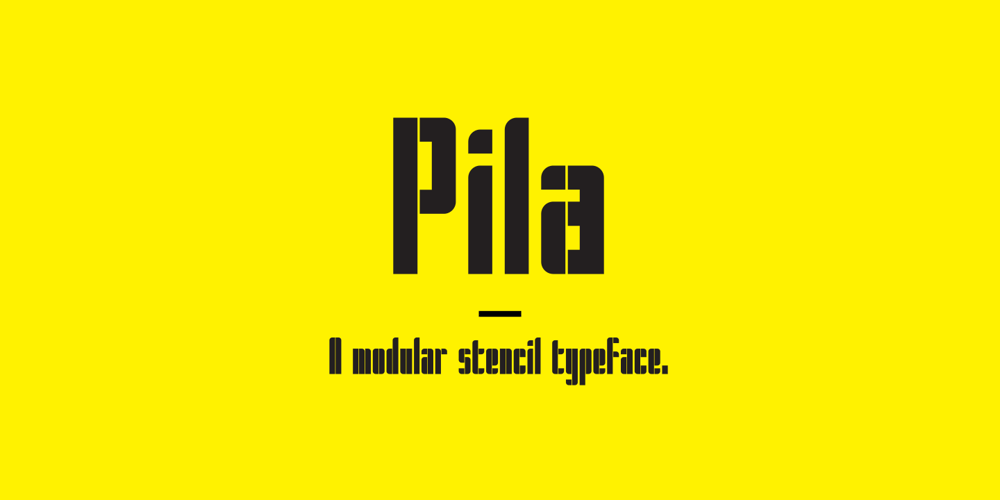
Pila Font Family was designed by Alex Jacque and published by Alex Jacque. Pila contains 4 styles and family package options. Pila, designed by Alex Jacque in 2014, is a modular, sans-serif stencil typeface that comes in regular and condensed formats. Crafted to be a bold, punchy, no-nonsense stencil typeface, Pila owes its unique look — as well as its name — to its adherence to the rigid modular system it is built upon. Pila is meant to be used at larger point sizes where visual impact is desired. Pila has a broad glyph set with the necessary characters to support a wide number of languages. Through the use of OpenType Pila can automatically create fractions as well as create superscript and subscript numerals.